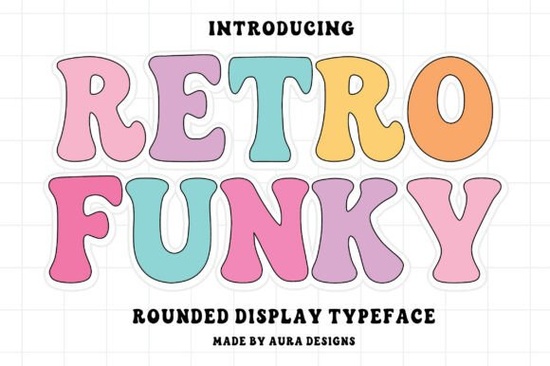
If you're working on a design that needs to feel upbeat, nostalgic, and full of personality, the Retro Funky Font might be exactly what you’re looking for. This bold, rounded display typeface channels the playful energy of vintage signage, 70s album covers, and funky streetwear without sacrificing readability. Whether you’re designing a t-shirt for your print-on-demand shop, creating social media graphics for a retro-themed event, or branding a new coffee shop with a groovy twist, Retro Funky adds instant character.
What makes this font stand out is its balance of chunky curves and clean spacing. The letterforms are smooth and approachable, making them easy to read even at larger sizes which is essential for posters, stickers, or product packaging. Unlike some novelty fonts that lean too hard into gimmicks, Retro Funky stays versatile enough for real-world use while still delivering that unmistakable retro-funky vibe.
What kinds of projects work best with Retro Funky?
This font shines in visual-heavy, personality-driven designs. Here are a few ideas where it really fits:
- Branding for cafes, boutiques, or music venues with a vintage or eclectic aesthetic
- T-shirt and apparel designs especially for throwback themes, dance studios, or summer festivals
- Social media posts and stories that need a burst of color and fun (think: “Flash Sale!” or “Groovy Vibes Only”)
- Stickers, enamel pins, and greeting cards aimed at younger or nostalgia-loving audiences
- Event posters for record fairs, retro gaming nights, or disco parties
Because it’s a display font, it’s best used for headlines, logos, or short phrases not body text. Pair it with a simple sans-serif (like Helvetica or Montserrat) for contrast and clarity.
How does it compare to other playful display fonts?
If you’ve browsed Creative Fabrica’s display font collection, you’ve probably seen options like Dolce Love, which leans romantic and soft, or School Mission, which has a hand-drawn classroom charm. Retro Funky sits in a different lane it’s bolder, rounder, and more rhythmically energetic.
For something with similar whimsy but a different mood, you might also consider Picky Rabbit, which feels quirky and childlike, or North West, a sleek geometric option with modern flair. And if you’re exploring truly unconventional shapes, Vertical Dentist offers an experimental, almost architectural take on display typography.
But if your goal is to evoke warmth, joy, and a touch of disco-ball sparkle, Retro Funky holds its own.
Is it beginner-friendly for small business owners or crafters?
Plus, because it’s all-caps friendly and includes basic punctuation and numerals, you can quickly mock up quotes, prices, or slogans without hunting for alternate characters. That’s a big help when you’re juggling multiple product listings or rushing to meet a client deadline.
Before finalizing your design, test how the font looks at different sizes. While it’s optimized for impact, extremely small applications (like fine print on tags) might lose some of its charm. Stick to medium or large scales for best results.
Pro tip: Try adding subtle textures like grain overlays or halftone patterns to enhance the vintage feel without overwhelming the letterforms.
Ready to give it a spin? If your next project calls for a font that’s cheerful, confident, and packed with retro soul, Retro Funky could be your new go-to.